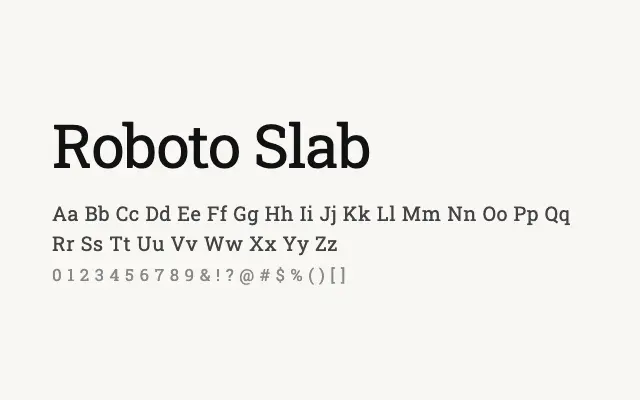
Roboto Slab
Roboto Slab grafts sturdy unbracketed slab serifs onto the Roboto skeleton, creating a reliable and characterful companion for screen and print.
The typeface bridges the neutrality of a grotesque sans with the warmth and emphasis that serif endings provide, making it suitable for editorial headlines, app interfaces, and branding contexts that need a touch more personality than Roboto itself offers. Its even stroke weight and clean geometry ensure it performs well across a wide size range, from body copy to large display settings. Full Cyrillic and Greek support extends its usefulness to multilingual projects.
Roboto Slab pairs the mechanically geometric skeleton of Roboto with unbracketed slab serifs, producing a face that reads as both contemporary and sturdy. The consistent stroke weight and squared terminals give it a clean, functional character across its full weight range.